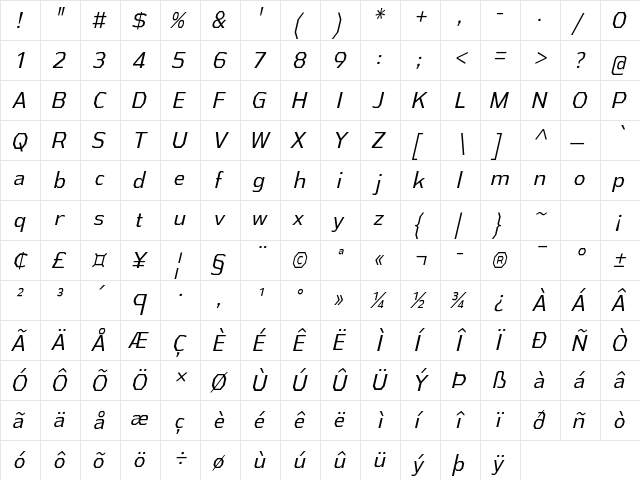
Athabasca Condensed Book Italic
Design Context for Athabasca Typeface
Athabasca takes a measured approach to typography — its balanced proportions and neutral character make it a reliable workhorse for both digital and print work. The slanted form adds forward momentum and visual energy. The condensed width makes it efficient for tight spaces without sacrificing legibility.
Pro Tip: Use Athabasca for emphasis, pull quotes, and subheadings where its slanted energy can add rhythm to the layout.